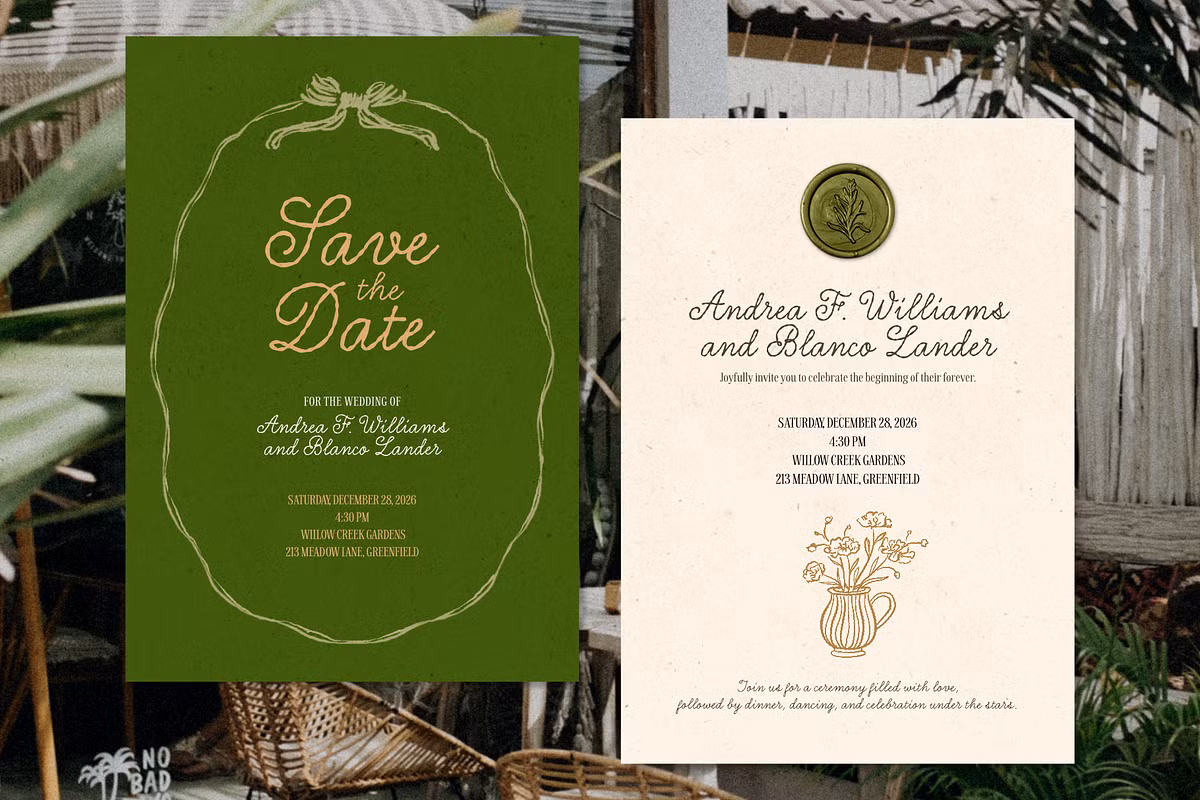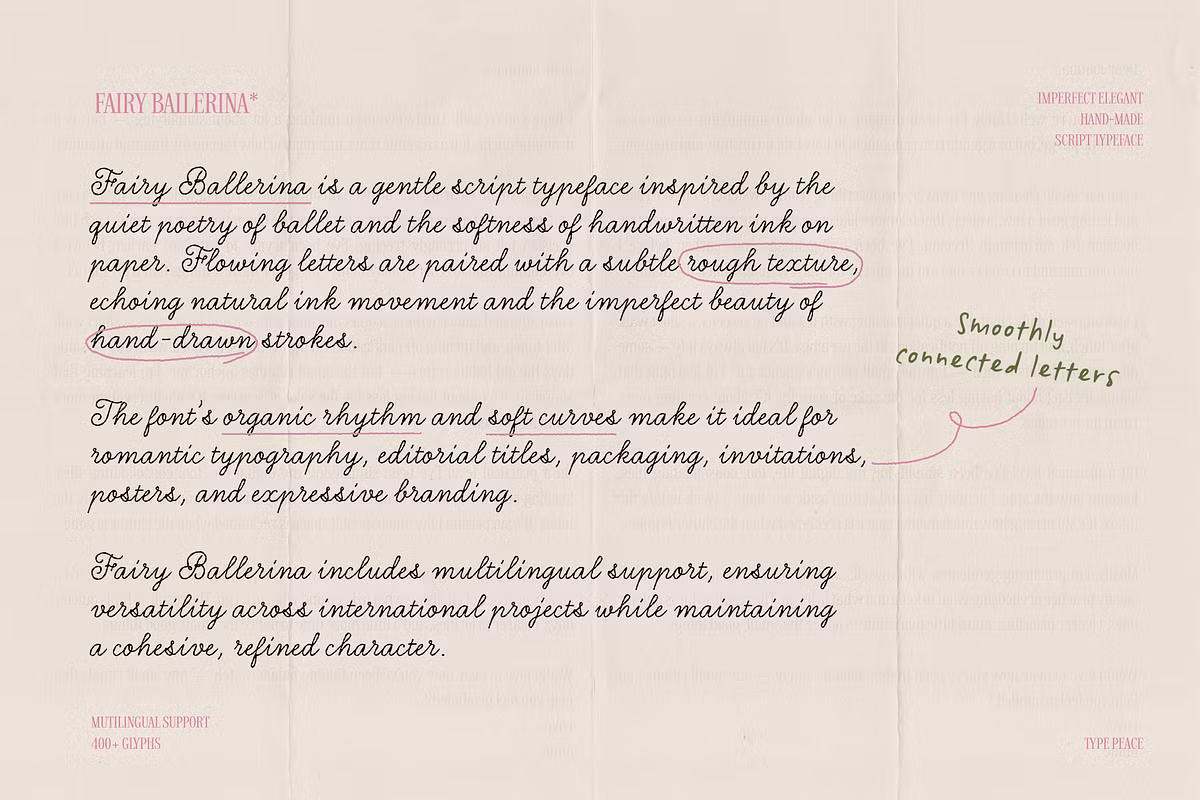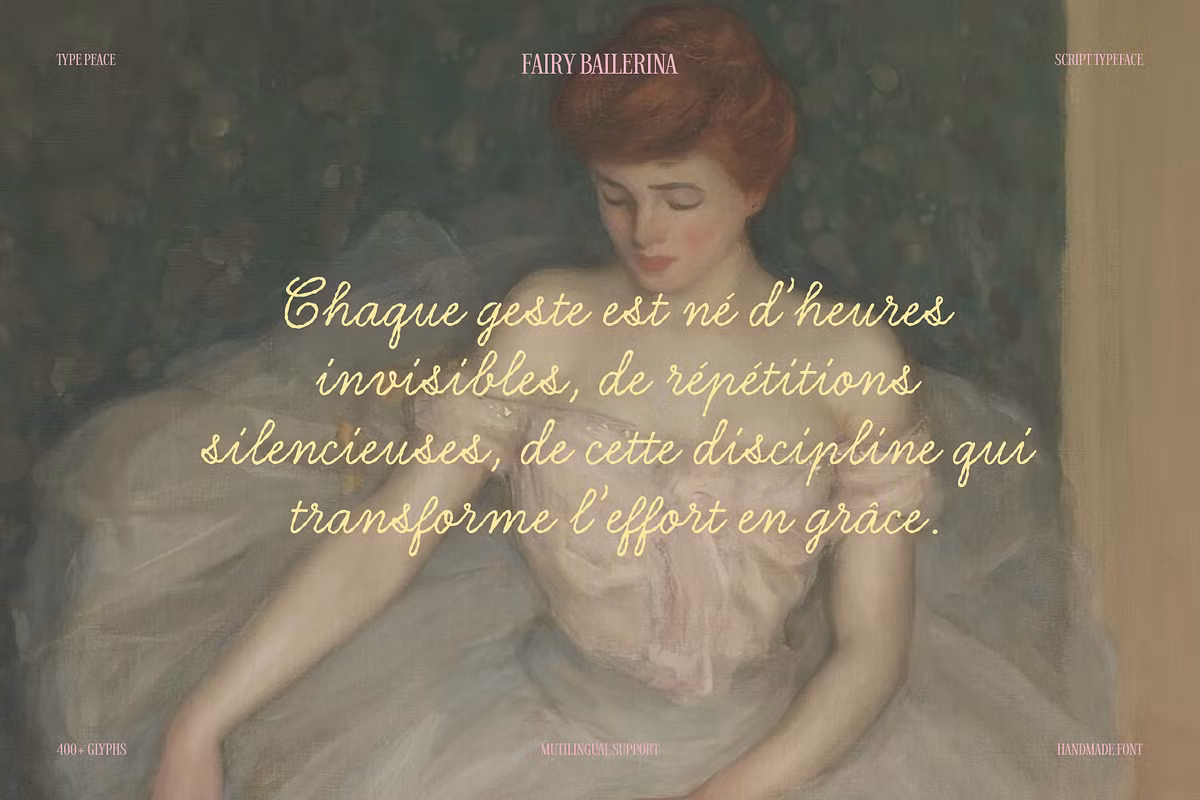
Fairy Ballerina: Elegant Script Typeface Inspired by Ballet
Fairy Ballerina | Script Font
Fairy Ballerina: Elegant Script Typeface Inspired by Ballet
Introducing Fairy Ballerina. Fairy Ballerina is a script font that shows the feel of ballet. The flow of hand written ink on paper. Fairy Ballerina mixes a style with a hint of art so designers can pick Fairy Ballerina for projects. Fairy Ballerina has letters that flow and a light rough texture that shows the movement of ink and the small flaws of hand drawn strokes. Fairy Ballerina works well in settings. Adds a clear rhythm and smooth curves to visual messages.
Example of Fairy Ballerina script typeface
Fairy Ballerina showcases elegant script typography.
Design Style of Fairy Ballerina
When I look at the design of Fairy Ballerina I notice the design of Fairy Ballerina is very inspired by the world of ballet. The world of ballet makes the design of Fairy Ballerina feel graceful and poised. The script typeface of Fairy Ballerina has curves and flowing lines that bring a sense of lightness and beauty. The script typeface of Fairy Ballerina uses shapes that feel light. Each letterform of Fairy Ballerina is made with care to show a quality. Each letterform of Fairy Ballerina looks like a dancer moving smooth.
I notice the texture in the typeface. The typeface adds a feel. The typeface looks as if the typeface was handwritten, with care. The mix of elegance and a hint of imperfection gives Fairy Ballerina a character. Fairy Ballerina stands out in the world of typography.
Weights and Proportions
Also the typeface comes in two weights: Regular and Bold. I see that the variety gives the designer flexibility. The designer can aim for a look or a stronger look. The balanced proportions of the letters keep the letters legible. The letters still hold the spirit of ballet.
Character Sets and Multilingual Support
Fairy Ballerina comes with a set of characters. Fairy Ballerina includes numbers, punctuation marks and symbols. Fairy Ballerina works well for design projects. Fairy Ballerina has, than 400 glyphs. Fairy Ballerina gives you the characters you need to communicate in your design.
Showcasing character sets of Fairy Ballerina
Fairy Ballerina includes extensive character sets.
The Fairy Ballerina typeface offers support. The Fairy Ballerina typeface includes English and many other languages: European, Central European, Eastern European, Vietnamese, South American. I have used Fairy Ballerina in my projects. I see how it works across languages. Designers can use Fairy Ballerina in contexts. Designers can reach an audience, with Fairy Ballerina without losing the style or elegance of the typeface.
I think Fairy Ballerina has the set of characters and the ability to work in languages. Fairy Ballerina is not nice to look at but useful for global branding and communication needs. Fairy Ballerina works worldwide.
Use Cases for Fairy Ballerina
I think Fairy Ballerina is a typeface, for the creative projects. I think Fairy Ballerina has an elegant feel so Fairy Ballerina works well for the following:
• Editorial Titles: Use Fairy Ballerina for magazine covers or article headings to create a captivating first impression.
• Invitations: For weddings, parties or other special events this typeface adds a bit of class and charm. Invitations look better with this typeface.
• Packaging: Fairy Ballerina makes the packaging look more luxurious. Fairy Ballerina also makes the packaging look more creative.
• Posters: I see posters that catch the eye with typography. I see posters use flowing letters that show emotion and beauty. I see the typography, in posters pull the viewer in.
• Branding: I suggest building a brand identity that connects with the audience. Add Fairy Ballerina to the logo. Add Fairy Ballerina to the materials.
Illustration of use cases for Fairy Ballerina
Fairy Ballerina is versatile for various design projects.
I have seen the flexibility of Fairy Ballerina, in the digital and the print media. Fairy Ballerina serves designers in fields.
Pairing Suggestions for Fairy Ballerina
If you want Fairy Ballerina to look its pair Fairy Ballerina with typefaces that fit. Here are some suggestions:
• Serif Fonts: Pair Fairy Ballerina, with serif fonts such as Garamond or Baskerville. The contrast, between the flowing script of Fairy Ballerina and the structured serif creates a harmony.
• Sans-serif Fonts: Pair Fairy Ballerina, with a clean sans-serif font such as Helvetica or Arial, for a look. Sans-serif Fonts and Fairy Ballerina together make the script stand out and keep the text readable.
• Additional Script Fonts: If you want a look you can pair the script font with another script font that has a weight and style. Allura or Great Vibes keep the fluidity in the design.
When pairing fonts, always consider contrast in weight, style, and legibility to ensure a balanced and aesthetically pleasing design.
Fairy Ballerina is more, than a typeface. Fairy Ballerina feels like a celebration of art and elegance, from the world of ballet. Fairy Ballerina has flowing letters and an organic rhythm. Fairy Ballerina provides a set of characters. Designers can use Fairy Ballerina for jobs. Fairy Ballerina works on invitations. Fairy Ballerina works on branding. Fairy Ballerina supports languages. Fairy Ballerina is designed with care. I have used Fairy Ballerina when I want to add a touch of grace to my work. I have used Fairy Ballerina in my work. You can try Fairy Ballerina in your project. Fairy Ballerina can spark your creativity. Fairy Ballerina can bring elegance to your designs.